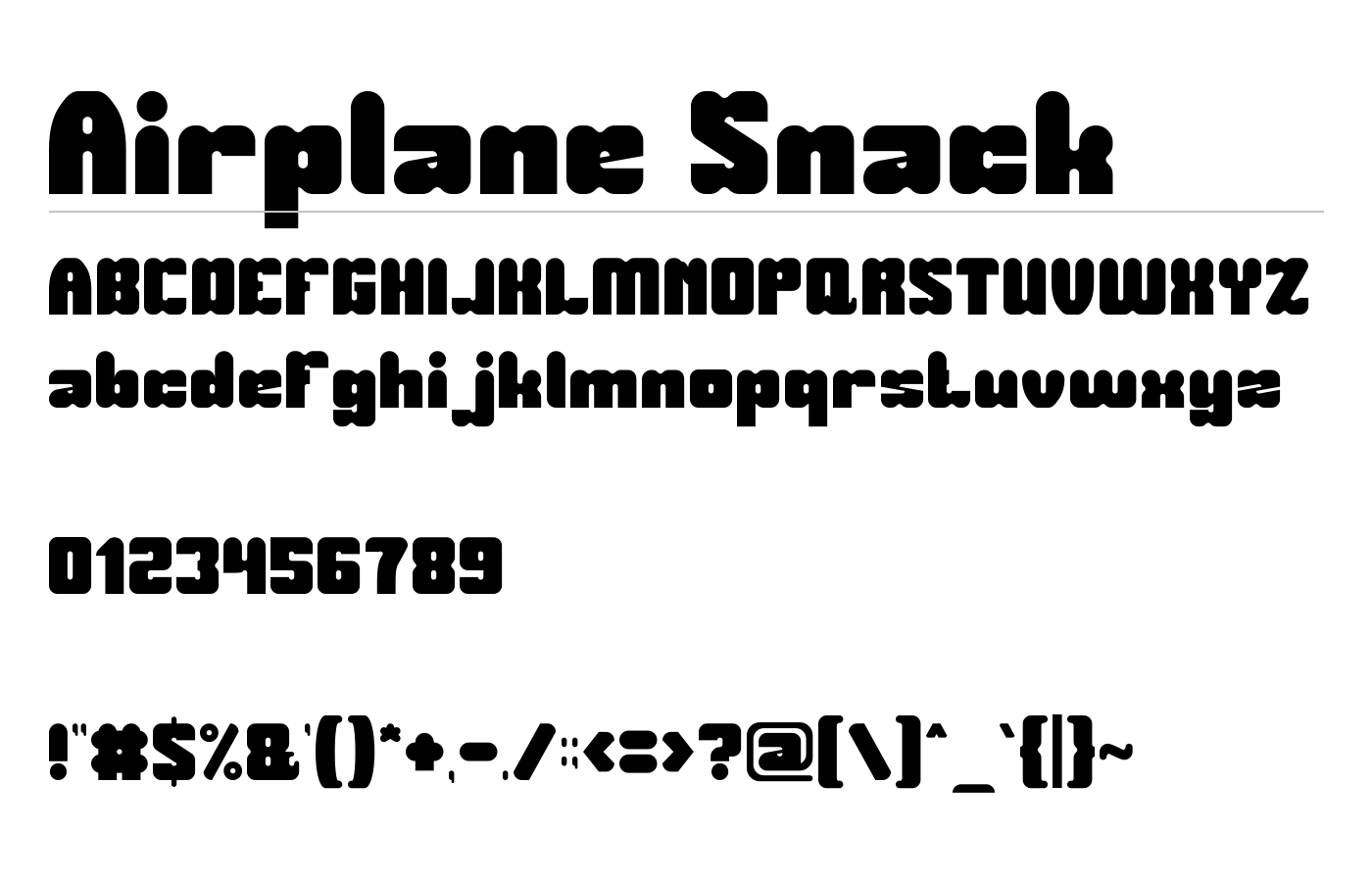
Airplane Snack Font is a bold, rounded sans serif typeface with a playful and chunky character that gives off a retro-futuristic vibe. Its heavy weight, uniform stroke, and the unique, slightly geometric shapes make it ideal for eye-catching headlines, fun branding, or packaging that aims to feel modern yet approachable. This font works especially well for designs that want to convey a sense of warmth and personality while maintaining strong visual impact.
Airplane Snack Font
About Airplane Snack Font